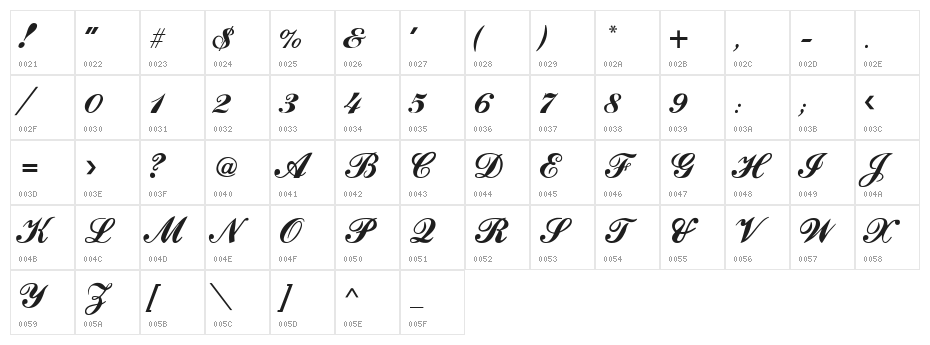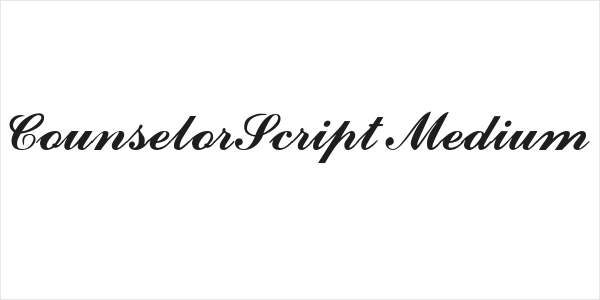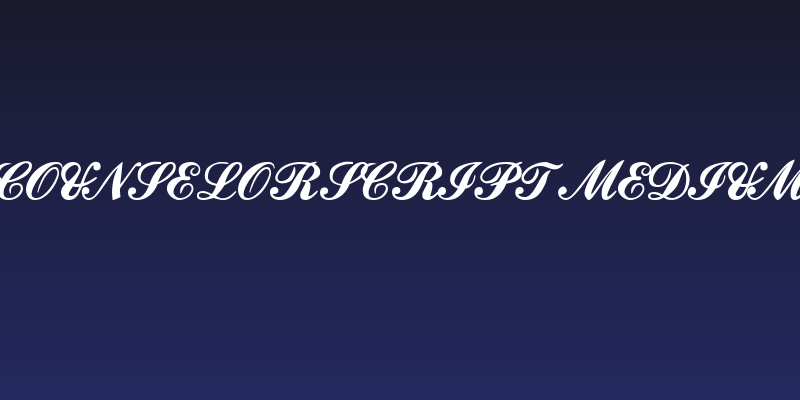
CounselorScript Medium Font
✎ Script
| Общий стиль | Elegant, Decorative |
| Область применения | Headlines, Invitations, Branding |
| Рекомендуемые проекты | Perfect for wedding invitations, elegant branding, formal event programs, and decorative signage. |